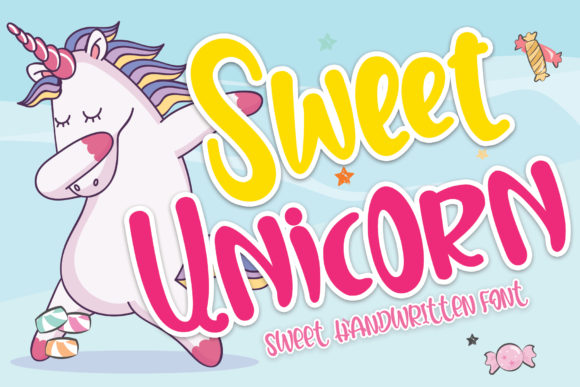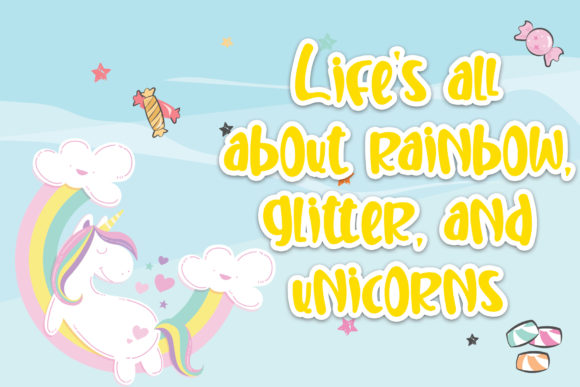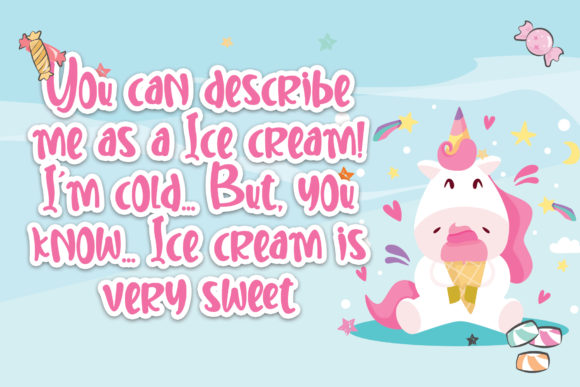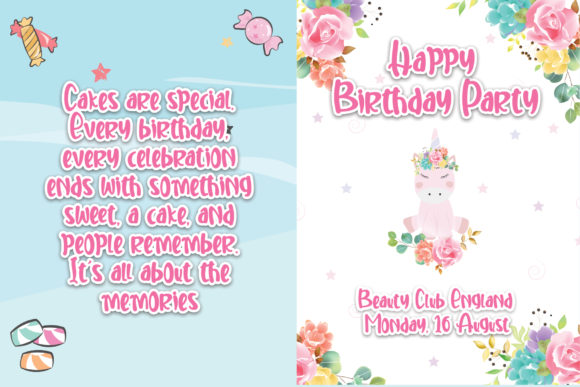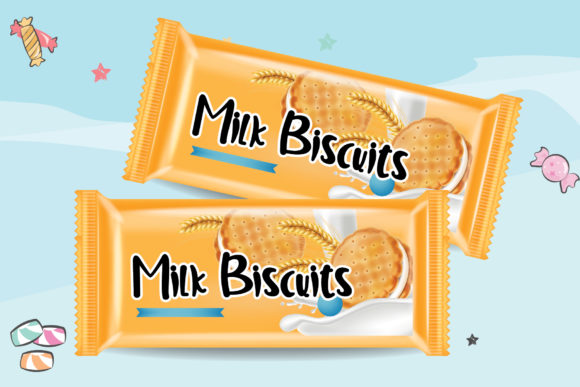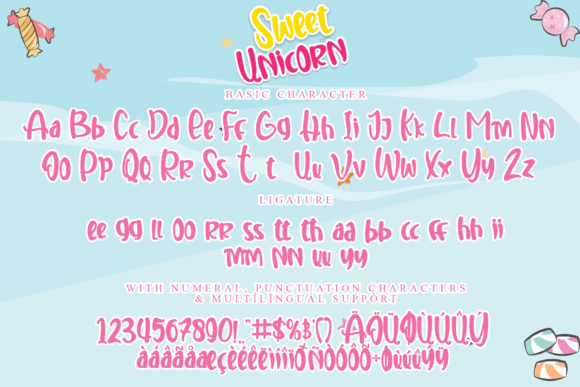
Sweet Unicorn Font
About Sweet Unicorn Font
Sweet Unicorn is a beautiful handwritten font with an incredibly friendly feel. Get inspired by its playful feel and create outstanding crafting projects.